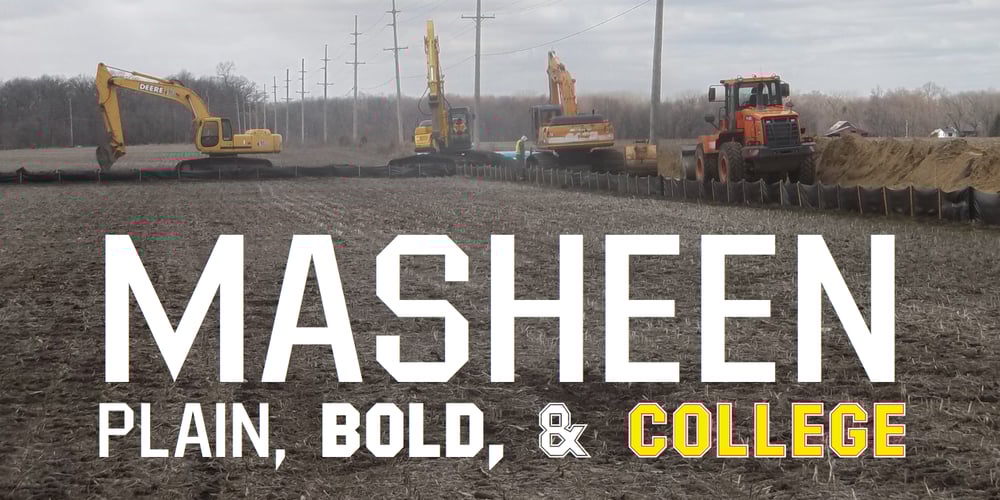
Masheen
Masheen font
Masheen Font Family was designed by Robert Schenk and published by Ingrimayne Type. Masheen contains 7 styles and family package options. This typeface was inspired by the popular typeface Machine but is not intended to be a copy of that font. It uses straight lines with circles converted to octagons. The Masheen family offers a variety of overlay possibilities to produce multicolored lettering. MasheenConvicted and MasheenFlag can be layered over MasheenBold to produce letters with two colors. The two overlay styles can be placed over MasheenCollege to produce bi or tricolored lettering. Examples are given in one of the font posters.